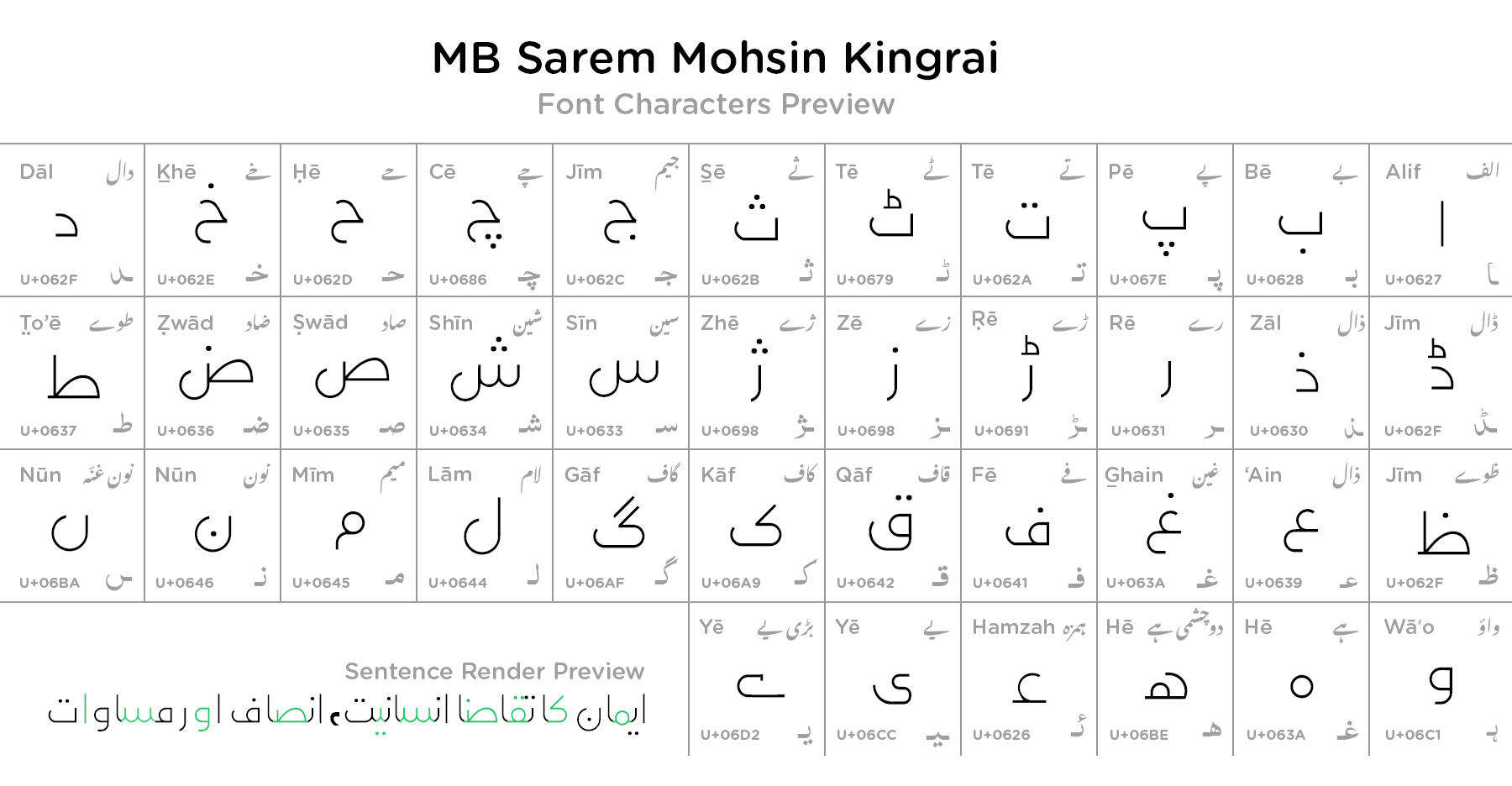
MB Sarem Mohsin Kingrai is a thin Sindhi display font with well-proportioned letterforms. It was designed and published by famous Sindhi font designer Sanaullah Mangnejo Sarem under the manufacturer Ayesha Graphics. It is compatible with various regional languages such as Urdu, Pashtu, Saraiki, and more, as well as character-based languages like Latin, Greek, and Arabic. Moreover, it offers its support for various latest Unicode Blocks such as Basic Latin, Latin-1 Supplement, Spacing Modifier Letters, Arabic, General Punctuation, Mathematical Operators, Private Use Area, Arabic Presentation Forms-A, and Arabic Presentation Forms-B, ensuring compatibility across different design platforms.